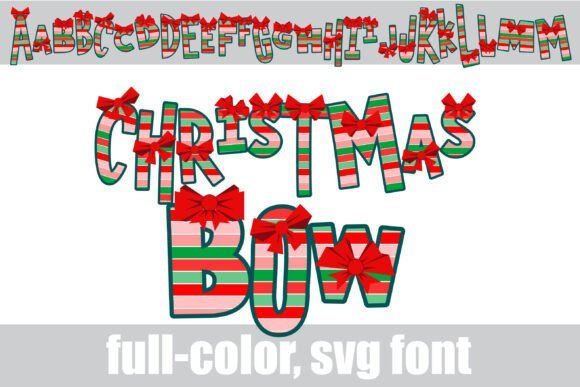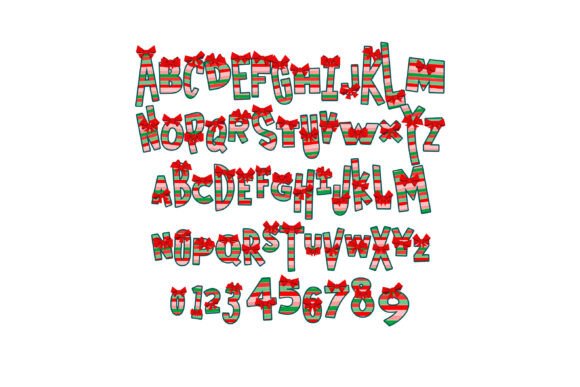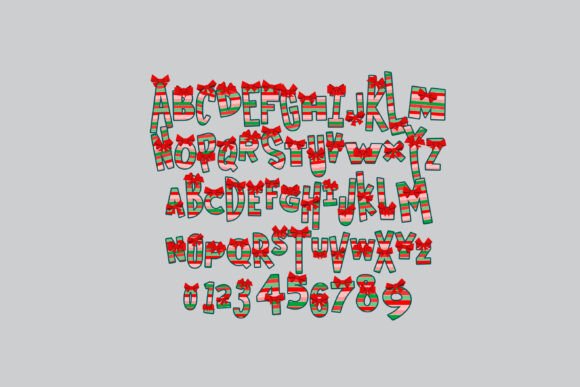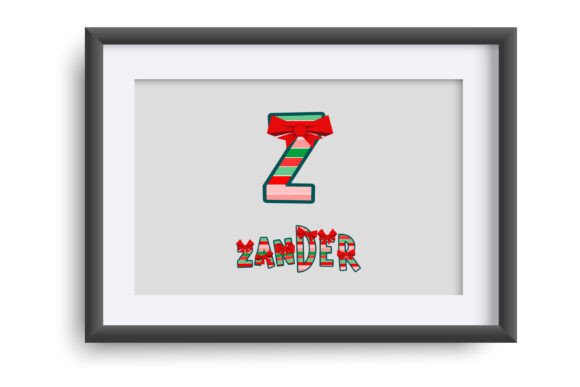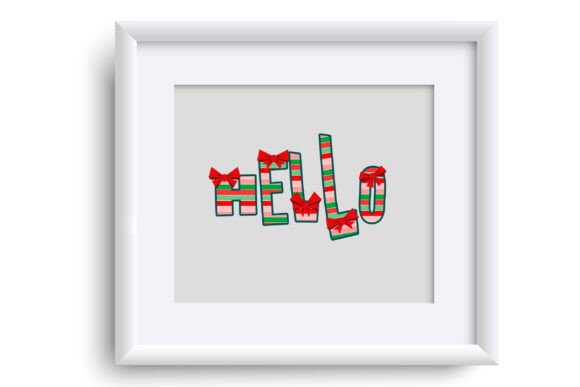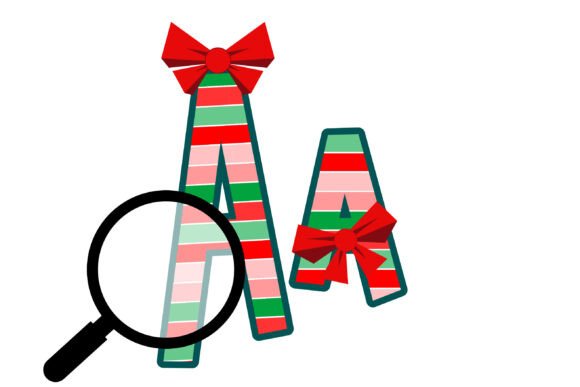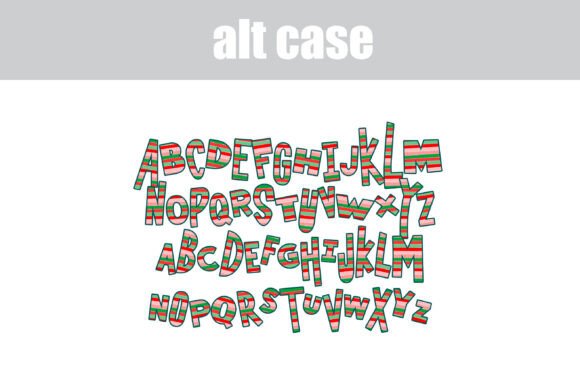
Get Ready to Deck the Halls with Christmas Cheer
It’s that time of the year again – the festive season is just around the corner, and creativity is in the air. I still remember the excitement of decorating my room with colorful lights and garlands as a kid. The sparkly effect it brought to our humble home was simply magical. As a designer, I’m always on the lookout for the perfect tools to bring that same magic to my projects.
Enter the Christmas Bow Font – a delightful, full-color font that’s sure to add a pop of festive fun to your designs. This charming sans-serif font features striped lettering with big, bold red bows, perfect for titles, displays, posters, and more. With its versatility and cheerfulness, the Christmas Bow Font is a valuable addition to any designer’s toolkit, especially during the holiday season.
Key Features of Christmas Bow Font
- Unique Characteristics: The font features intricate, hand-drawn designs and ornaments inspired by traditional Christmas decorations
- Font Style: A mix of bold and elegant styles, perfect for creating festive and whimsical designs
Designer Review: Christmas Bow Font
I recently had the chance to work with the Christmas Bow Font, and here’s my honest take on this festive font.
- The Christmas Bow Font is perfect for creating a festive and playful atmosphere. The intricate details and curves make it ideal for holiday-themed projects.
- The font is highly customizable, allowing you to adjust the size, color, and style to fit your design needs.
- The font is well-suited for digital and print media, making it a great choice for various applications.
- The font may not be as versatile for non-holiday-themed projects, as its festive design might not be suitable for everyday use.
- The font’s complexity might make it difficult to use for simple text-based projects, such as body text or small headings.
Overall, the Christmas Bow Font is a great choice for designers looking to add a touch of festive flair to their projects. While it may have some limitations, its unique design and customization options make it a valuable addition to any designer’s toolkit.
The Christmas Bow Font is ideal for:
- Creating holiday greeting cards and invitations.
- Designing festive social media graphics and ads.
- Creating holiday-themed presentations and documents.
- Adding a touch of holiday cheer to blog posts and articles.